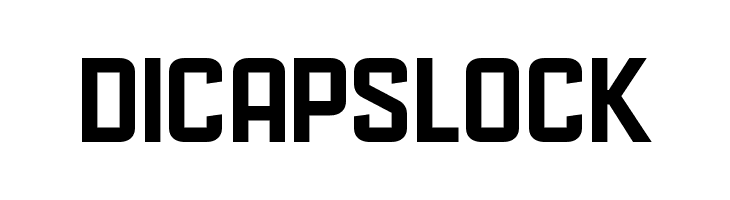
Chaque police phare se distingue par équilibre, lisibilité et polyvalence. Vous trouverez des sans‑serifs modernes, des scripts élégantes, des serifs vintage et des displays minimalistes.
Casual handwritten script with tall, narrow letters and fluid strokes.
A flowing, cursive script font with elegant, interconnected characters.
A whimsical and enchanting font with curly, decorative elements.
Bold, angular Gothic-inspired font with dramatic strokes.
A dot-based, digital-style font with a modern, structured appearance.
A bold, italic font with rounded characters and a modern, energetic style.
A playful, bold font with rounded, bubbly characters and a hand-drawn feel.
A bold, playful font with a cartoonish, hand-drawn style.
A bold, playful font with rounded edges and a whimsical style.
A bold, jagged font with an intense, dynamic style and expanded width.
A hand-drawn, angular font with a sketch-like, artistic style.
A playful, whimsical font with bold and thin strokes, featuring dynamic curves and playful serifs.
A bold, vintage cursive font with elegant flourishes.
A lively, handwritten font with fluid strokes and dynamic energy.
A bold, brush-style font with dynamic, handcrafted strokes.
A bold, slightly italicized font with strong, dynamic characters.
A bold, distressed font with a rugged, hand-crafted appearance.
A pixelated, retro-style font ideal for digital and nostalgic projects.
A bold, geometric font with a futuristic and modern design.
A bold, italic font with sharp, angular edges and a dynamic style.
A bold, modern sans-serif font with uniform stroke width and balanced proportions.
A bold, playful font with rounded, bubbly characters.
A bold, futuristic font with a 3D effect and geometric design.
A flag-themed decorative display font with each character as a distinct flag.
An elegant, flowing script font with graceful, interconnected characters.